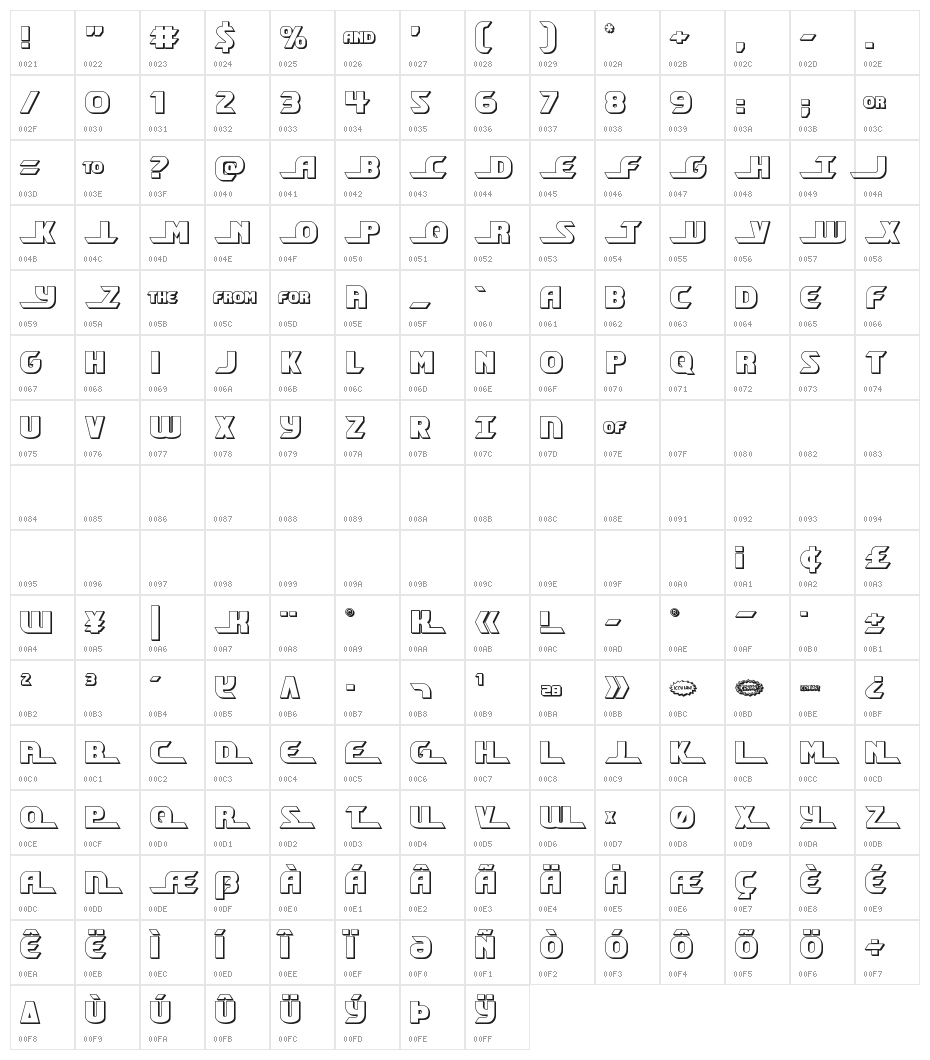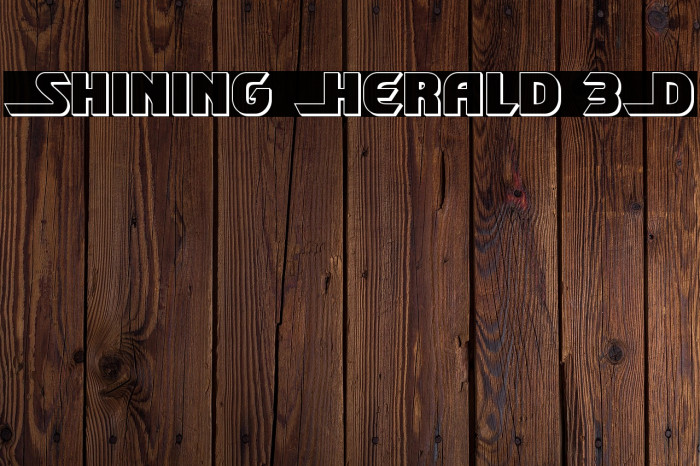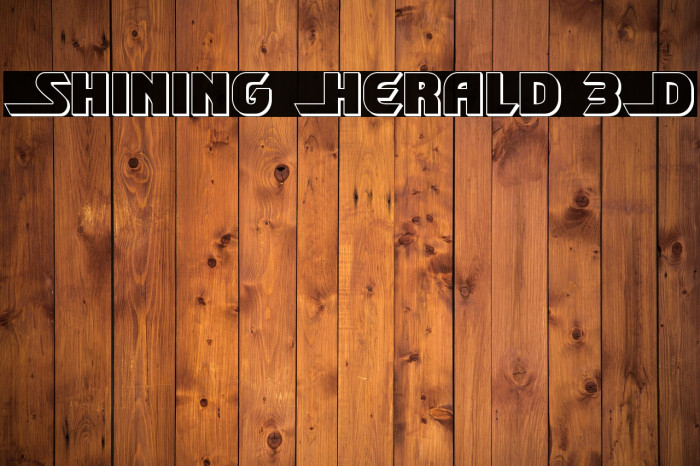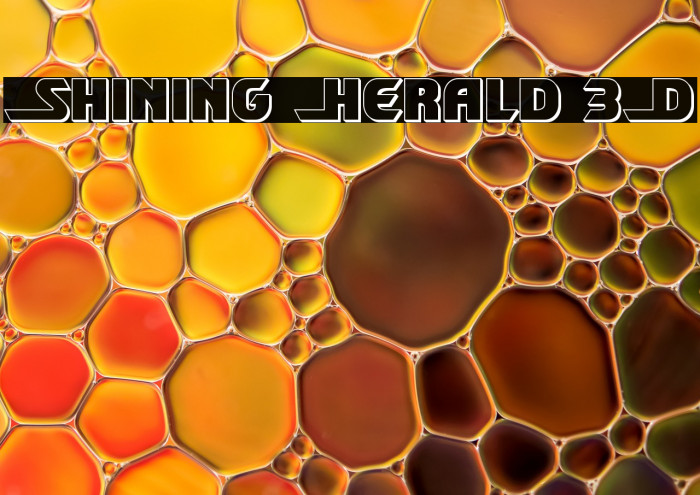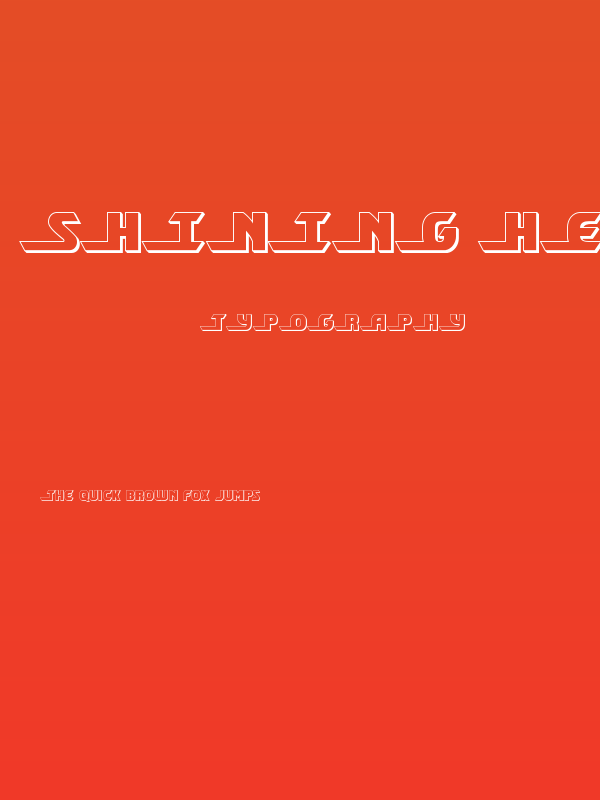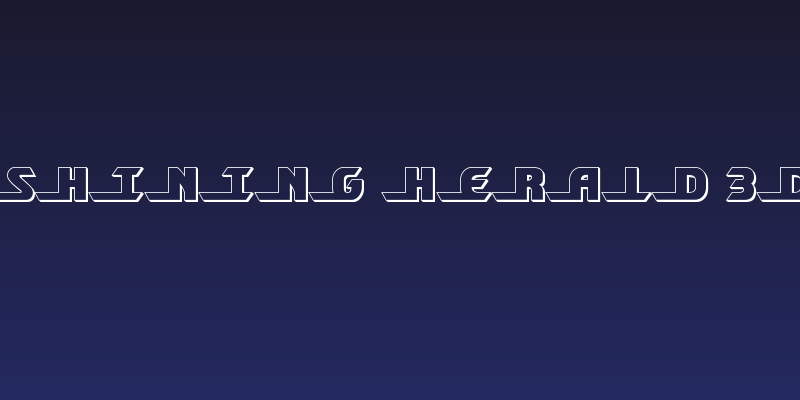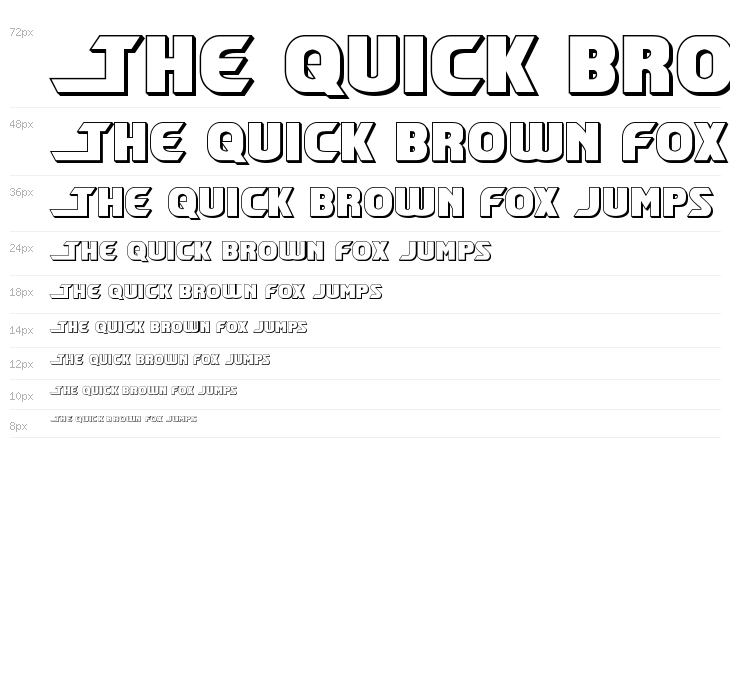
Shining Herald 3D Font
Shining Herald 3D Description
This font features a bold, three-dimensional appearance with a distinct shadow effect that gives each character a sense of depth. The uppercase letters are designed with clean, geometric lines and sharp angles, creating a modern and futuristic look. The numbers and special characters maintain this style, ensuring consistency across all elements. The font's design is both eye-catching and legible, making it suitable for a variety of creative applications. Its unique 3D effect adds a dynamic and engaging element to any project.